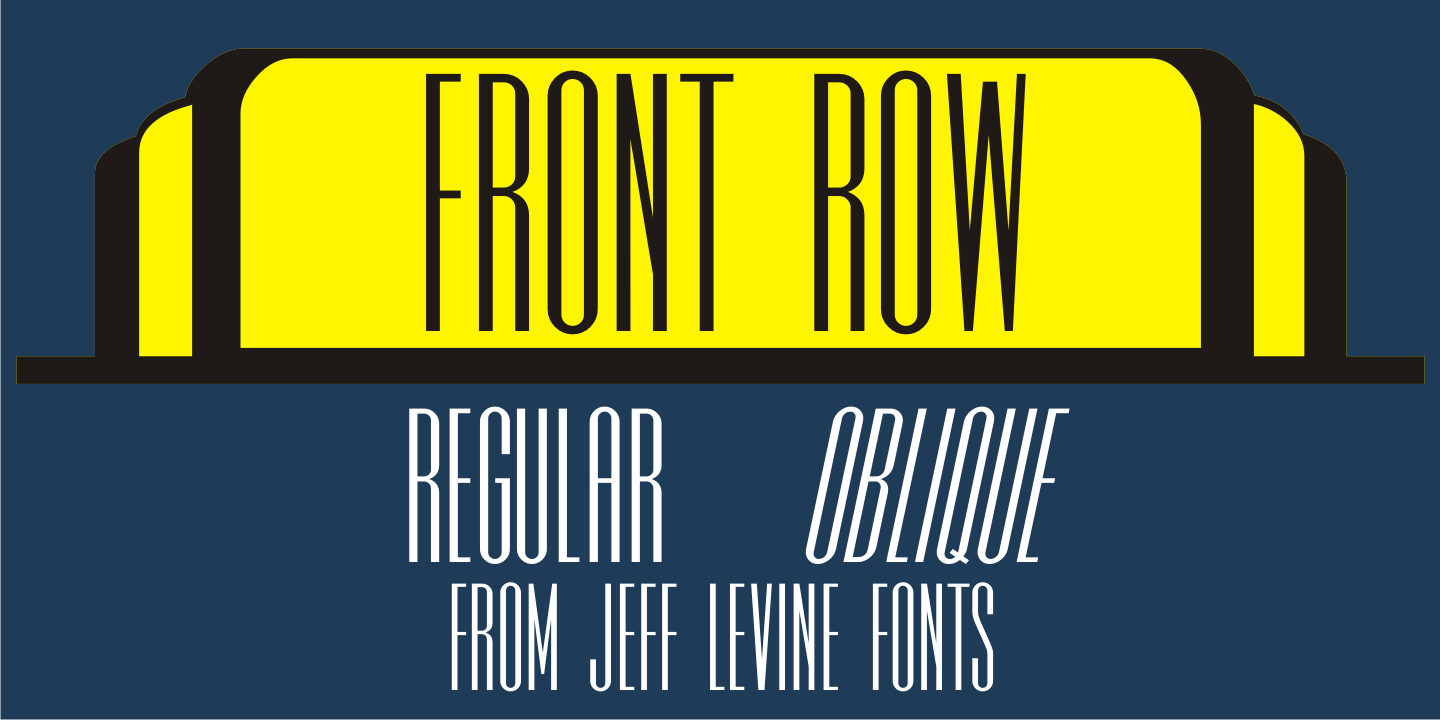
Front Row
Front Row JNL is an all-caps reinterpretation of Morris Fuller Benton's 1937 type design 'Empire”, and is available in both regular and oblique versions.
As is often the case when a digital type font is based on a few letter examples found on a printed sample [in this case, the sheet music of the 1946 Guy Lombardo hit 'What More Can I Ask For”], the missing characters were drawn from scratch.
Front Row includes 213 glyphs.